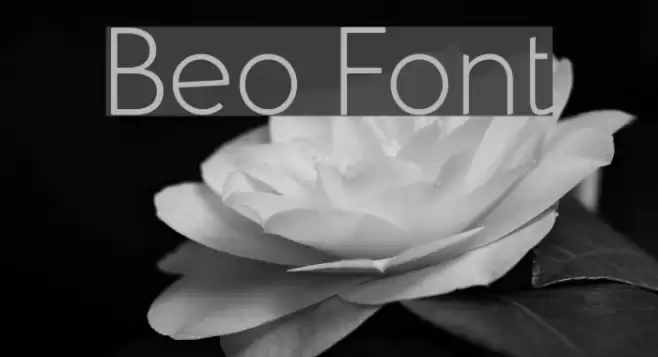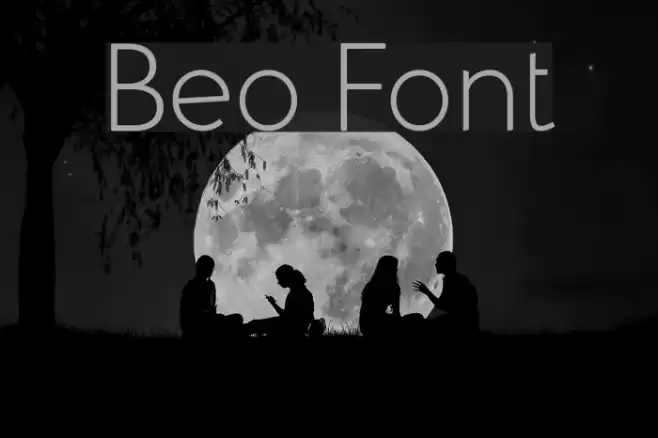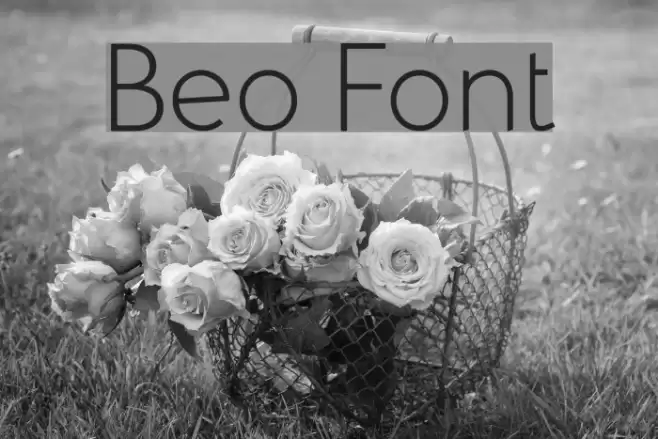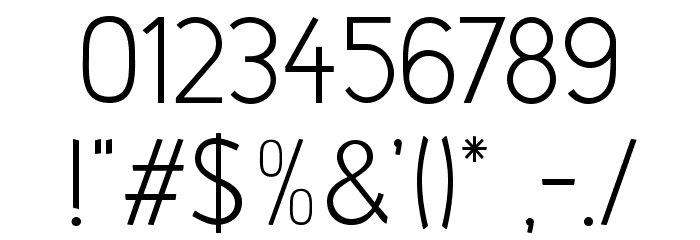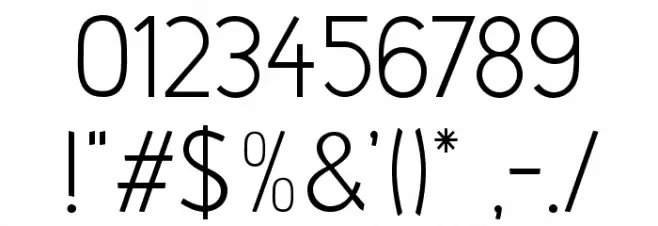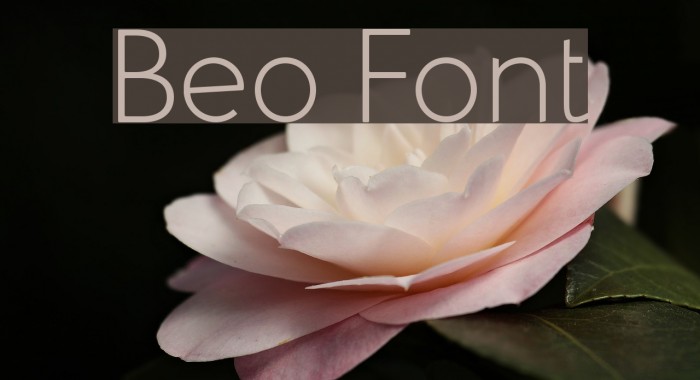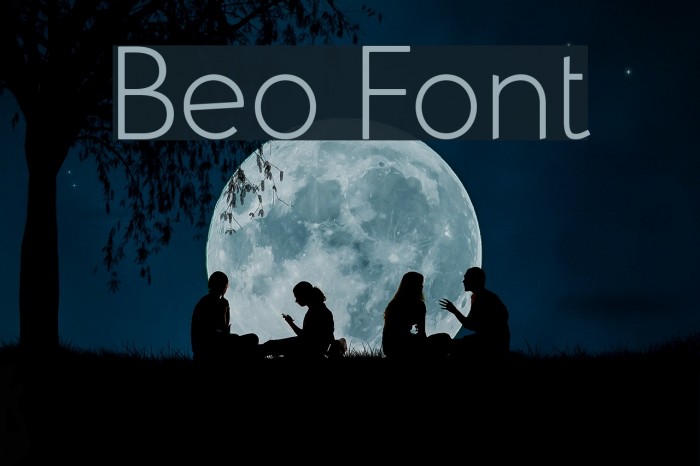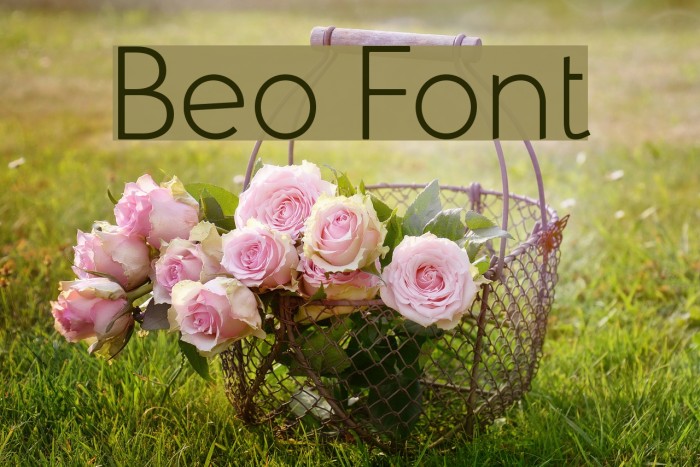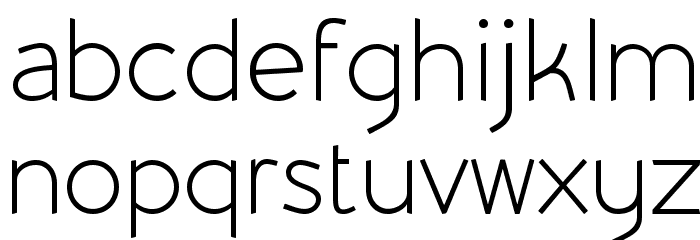
Beo
This font features a clean and modern sans-serif design with a geometric structure. The characters are evenly spaced, providing a balanced and harmonious appearance. The strokes are uniform in thickness, contributing to a low contrast look that enhances readability. The uppercase letters are tall and elegant, while the lowercase letters maintain a consistent flow, making it suitable for both display and body text. The numerals are clear and distinct, ensuring easy legibility. Special characters are well-integrated, maintaining the overall aesthetic of the font.
A modern, geometric sans-serif font with low contrast and balanced spacing.